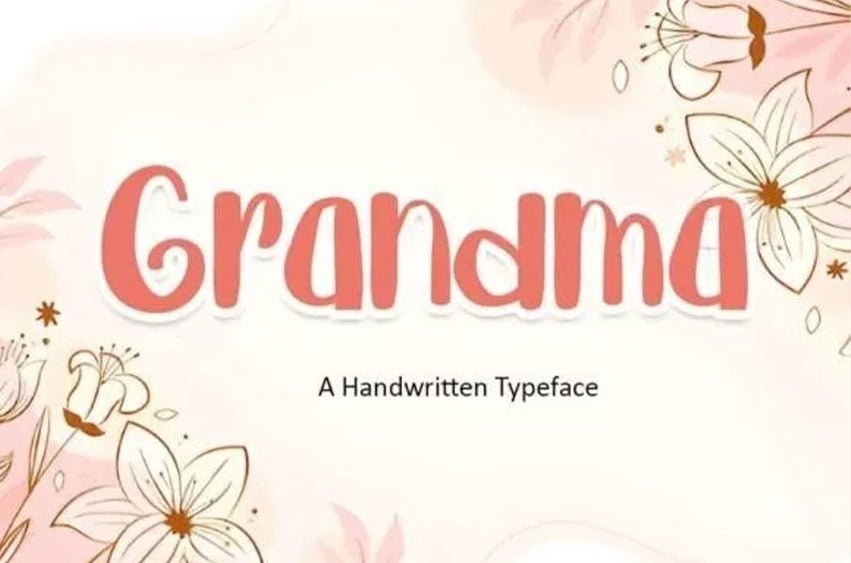
Grandma Font is a simple, joyful, and ravishing handwritten font. It has an adaptable style and it is ideal for a wide range of formal or informal designs. It looks beautiful on a variety of designs requiring a personalized style, such as wedding invitations, thank you cards, weddings, greeting cards, logos, and so on.